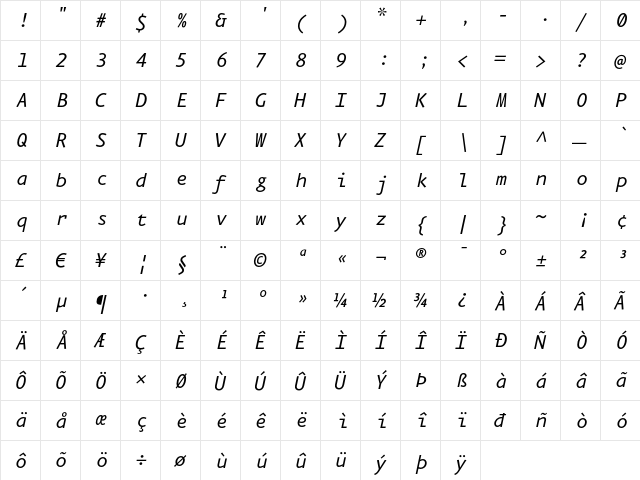
Eureka Mono Italic Font Preview
Eureka Mono Italic
Design Context for Eureka Mono Typeface
Eureka Mono brings the precise, column-aligned rhythm of monospaced typography to designs that value technical clarity and systematic order. The dynamic lean of this cut emphasises speed and emphasis in any layout.
A natural fit for code editors, technical documentation, developer-focused branding, and terminal-inspired UI.
Pro Tip: Pair Eureka Mono with a proportional sans for UI contexts where code-style labels and regular body copy need to coexist.